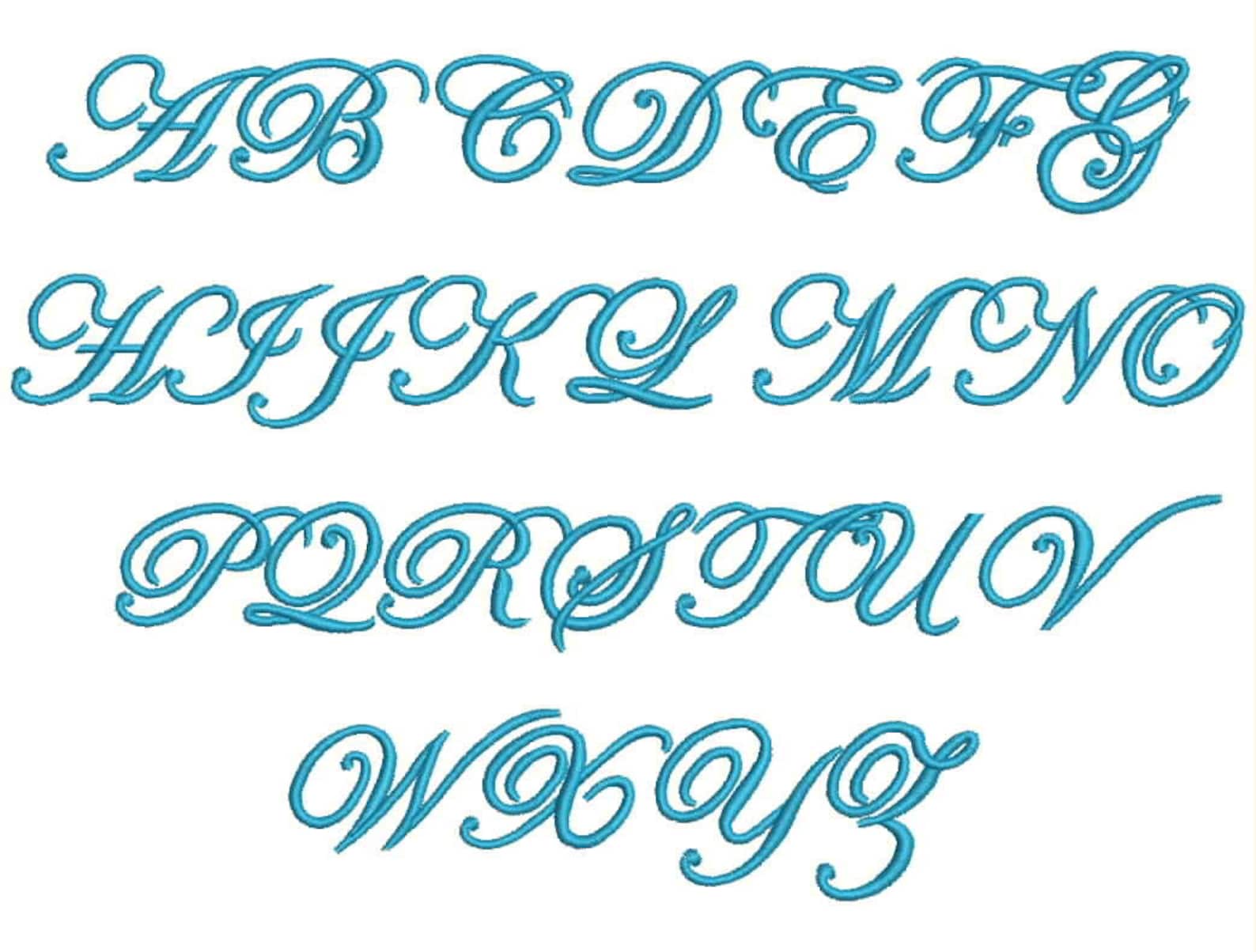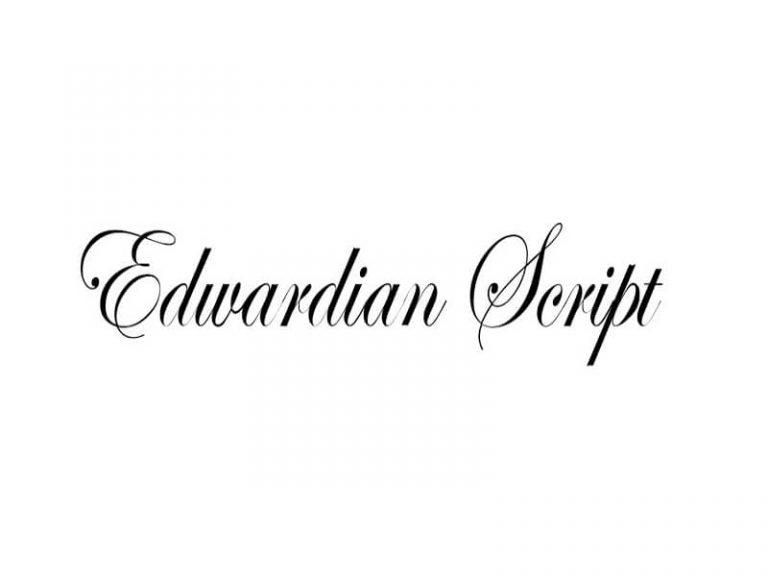
Font Edwardian Script
Font Edwardian Script - Web itc edwardian script font is a beautiful typeface with convenient functionality. Web itc edwardian script font family was designed by edward benguiat and published by itc. 13 users have given the font a rating of 4.77 out of 5. It suits wedding invitations, titles, banners, posters, and more. Whether you’re looking for script typeface for calligraphy & instagram scripts for diy. This font is highly readable and can adapt to anything. It has been downloaded 5335 times. Web edwardian script itc is a magical & dynamic script font carefully created with a touch of chic calligraphy. Itc edwardian script contains 2 styles and family package options. You can find more information about edwardian script itc.
Web itc edwardian script font family was designed by edward benguiat and published by itc. It suits wedding invitations, titles, banners, posters, and more. You can find more information about edwardian script itc. It has been downloaded 5335 times. 13 users have given the font a rating of 4.77 out of 5. Itc edwardian script contains 2 styles and family package options. Web itc edwardian script font is a beautiful typeface with convenient functionality. Whether you’re looking for script typeface for calligraphy & instagram scripts for diy. Web edwardian script itc regular is a regular truetype font. This font is highly readable and can adapt to anything.
It has been downloaded 5335 times. Web edwardian script itc is a magical & dynamic script font carefully created with a touch of chic calligraphy. It suits wedding invitations, titles, banners, posters, and more. Web itc edwardian script font family was designed by edward benguiat and published by itc. Whether you’re looking for script typeface for calligraphy & instagram scripts for diy. Web edwardian script itc regular is a regular truetype font. This font is highly readable and can adapt to anything. Itc edwardian script contains 2 styles and family package options. Web itc edwardian script font is a beautiful typeface with convenient functionality. 13 users have given the font a rating of 4.77 out of 5.
Web itc edwardian script font is a beautiful typeface with convenient functionality. Web edwardian script itc regular is a regular truetype font. Web itc edwardian script font family was designed by edward benguiat and published by itc. 13 users have given the font a rating of 4.77 out of 5. Web edwardian script itc is a magical & dynamic script.
Itc edwardian script contains 2 styles and family package options. It suits wedding invitations, titles, banners, posters, and more. It has been downloaded 5335 times. This font is highly readable and can adapt to anything. Whether you’re looking for script typeface for calligraphy & instagram scripts for diy.
It suits wedding invitations, titles, banners, posters, and more. Web itc edwardian script font is a beautiful typeface with convenient functionality. Web edwardian script itc regular is a regular truetype font. It has been downloaded 5335 times. You can find more information about edwardian script itc.
Web itc edwardian script font family was designed by edward benguiat and published by itc. Web edwardian script itc is a magical & dynamic script font carefully created with a touch of chic calligraphy. It suits wedding invitations, titles, banners, posters, and more. It has been downloaded 5335 times. This font is highly readable and can adapt to anything.
13 users have given the font a rating of 4.77 out of 5. Itc edwardian script contains 2 styles and family package options. Web itc edwardian script font family was designed by edward benguiat and published by itc. It suits wedding invitations, titles, banners, posters, and more. This font is highly readable and can adapt to anything.
You can find more information about edwardian script itc. Web edwardian script itc is a magical & dynamic script font carefully created with a touch of chic calligraphy. Web itc edwardian script font is a beautiful typeface with convenient functionality. Whether you’re looking for script typeface for calligraphy & instagram scripts for diy. Web itc edwardian script font family was.
Web itc edwardian script font is a beautiful typeface with convenient functionality. Whether you’re looking for script typeface for calligraphy & instagram scripts for diy. 13 users have given the font a rating of 4.77 out of 5. This font is highly readable and can adapt to anything. Web edwardian script itc is a magical & dynamic script font carefully.
Itc edwardian script contains 2 styles and family package options. You can find more information about edwardian script itc. Web itc edwardian script font is a beautiful typeface with convenient functionality. This font is highly readable and can adapt to anything. Web itc edwardian script font family was designed by edward benguiat and published by itc.
It suits wedding invitations, titles, banners, posters, and more. Itc edwardian script contains 2 styles and family package options. 13 users have given the font a rating of 4.77 out of 5. Web edwardian script itc is a magical & dynamic script font carefully created with a touch of chic calligraphy. You can find more information about edwardian script itc.
Whether You’re Looking For Script Typeface For Calligraphy & Instagram Scripts For Diy.
This font is highly readable and can adapt to anything. Web itc edwardian script font family was designed by edward benguiat and published by itc. Web itc edwardian script font is a beautiful typeface with convenient functionality. It suits wedding invitations, titles, banners, posters, and more.